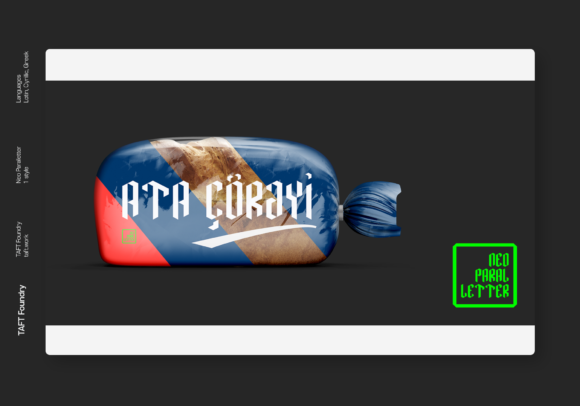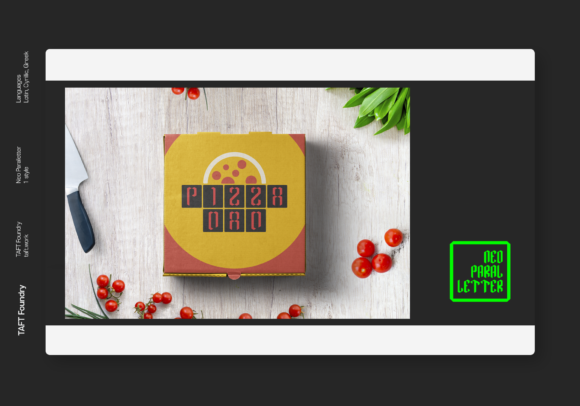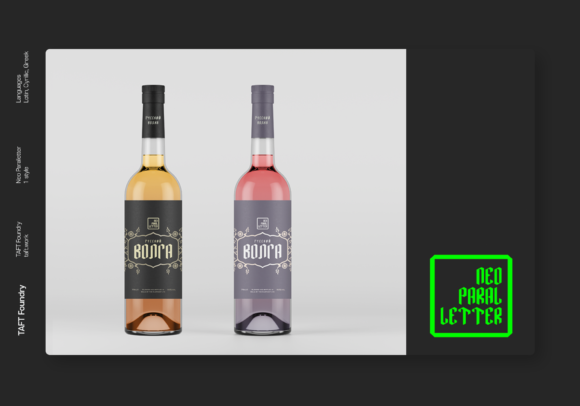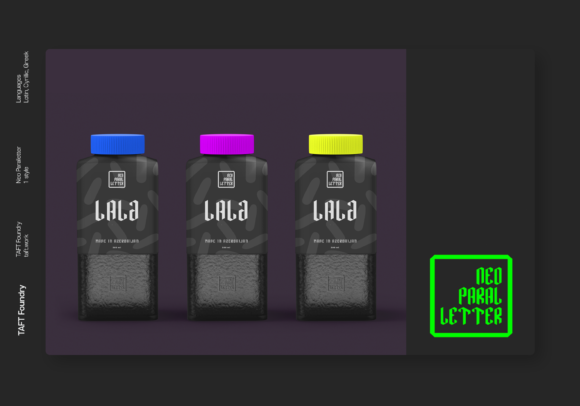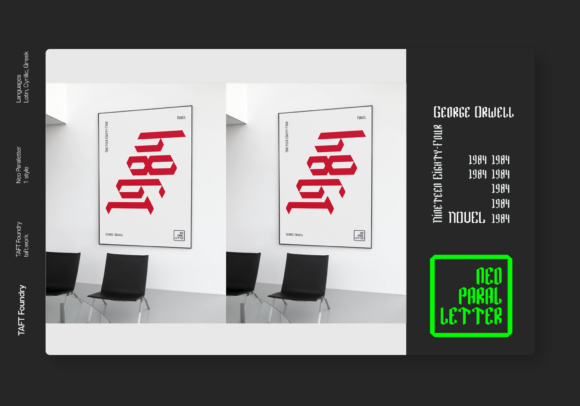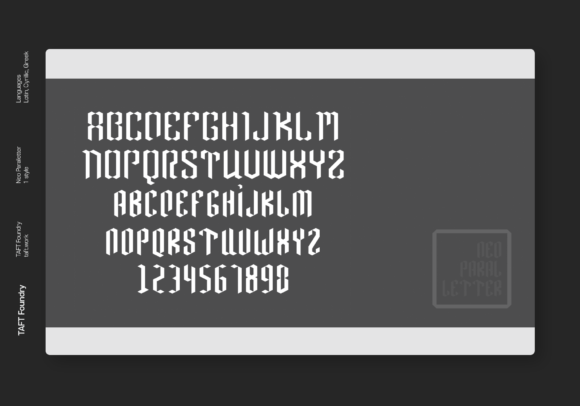
Introduction to Neo Paralletter Font Font
Fonts play a crucial role in design, and the Neo Paralletter Font font is a typeface that brings both character and versatility to any project. Whether you’re working on a branding project, a website, or a print design, the Neo Paralletter Font font offers a unique style that can elevate your work.
Neo Paralletter is a geometric modern blackletter typeface.
Neo Paralletter is a combination of the boundaries between old and new, tradition and contemporary This use is inspired by the art form that combines calligraphy, typography, and graffiti.
Key Features of Neo Paralletter Font Font
Why Choose Neo Paralletter Font Font?
The Neo Paralletter Font font is more than just a typeface – it’s a design tool that helps you communicate your message with style and clarity. Its unique character set and versatile design make it suitable for a wide range of applications, from elegant invitations to bold headlines.
With its carefully crafted letterforms and balanced proportions, the Neo Paralletter Font font ensures readability and visual appeal across all mediums.
What makes Neo Paralletter Font font special?
The Neo Paralletter Font font stands out with its unique design, exceptional readability, and versatility across various design applications.